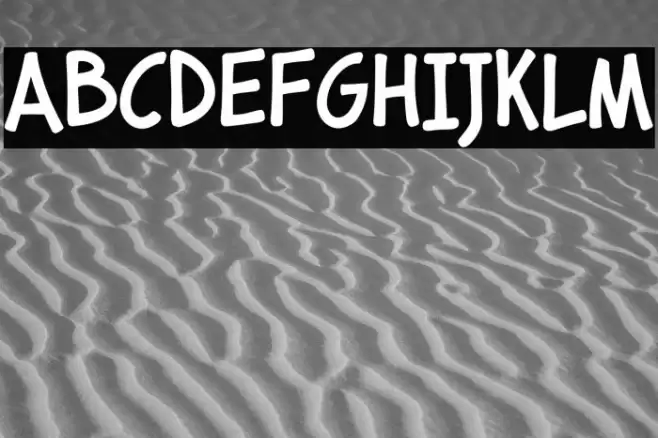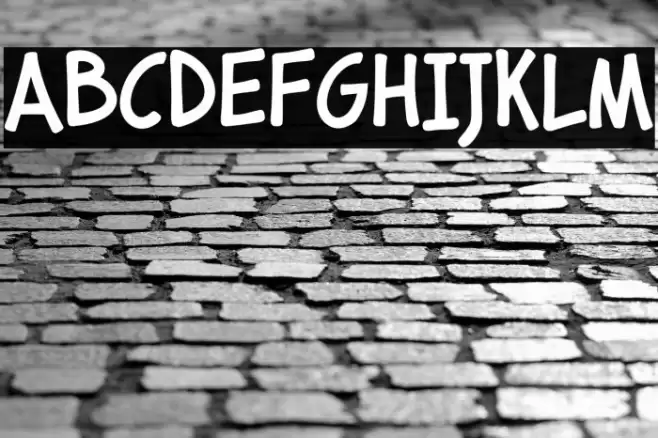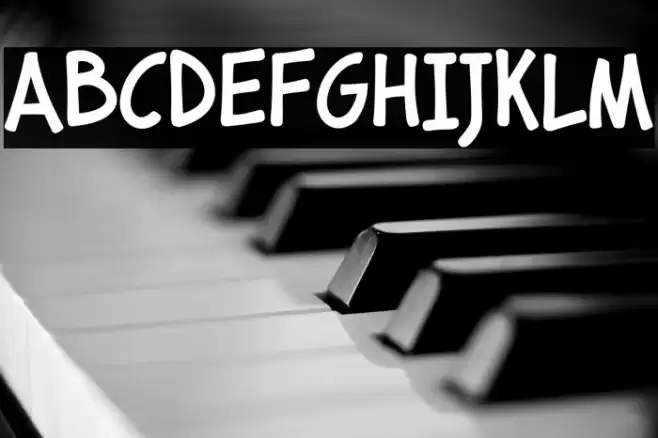
Comico Font
Comico Description
This playful and bold font features a handwritten style with a casual, comic-like appearance. The letters are rounded and slightly irregular, giving them a friendly and approachable feel. The strokes are thick and consistent, providing a strong presence on the page. The font includes both uppercase and lowercase letters, numbers, and a variety of special characters, making it versatile for different uses. Its informal style is perfect for projects that require a fun and engaging look.
- Proposed Projects: Ideal for comic books, children's books, playful branding, posters, and casual invitations.
- Overall Style: Playful